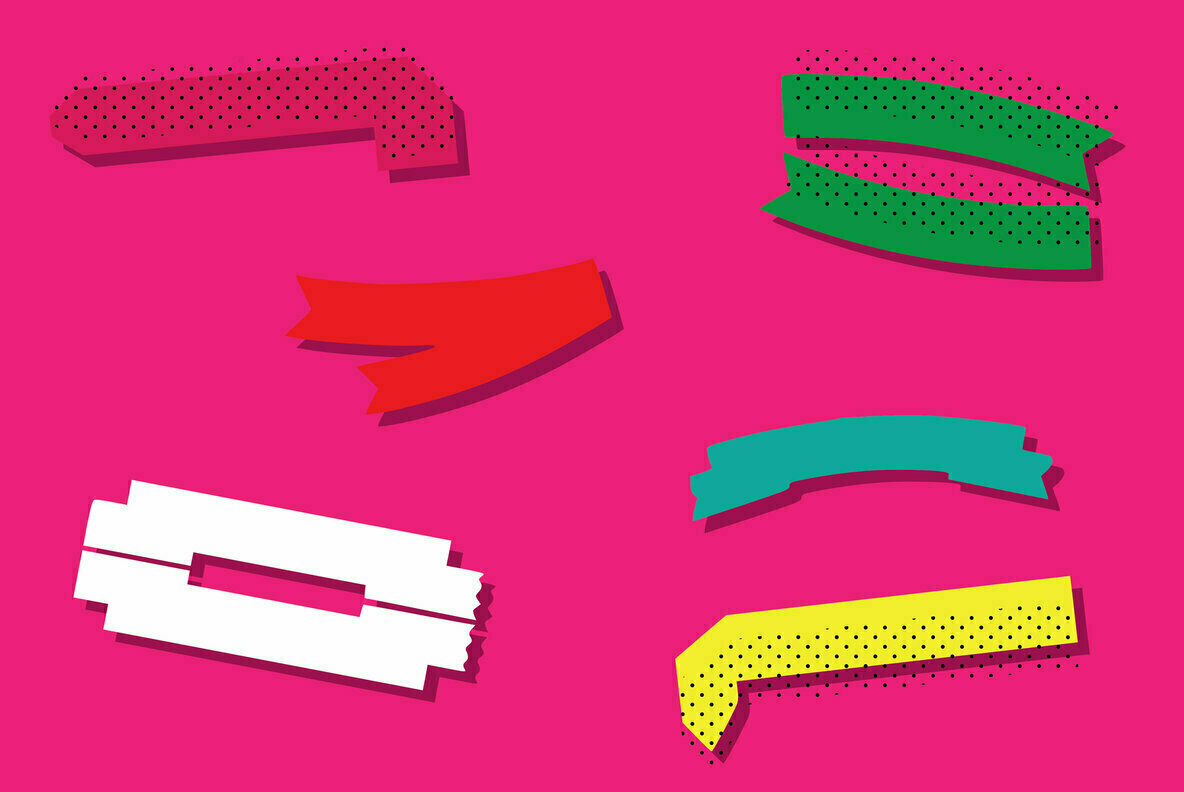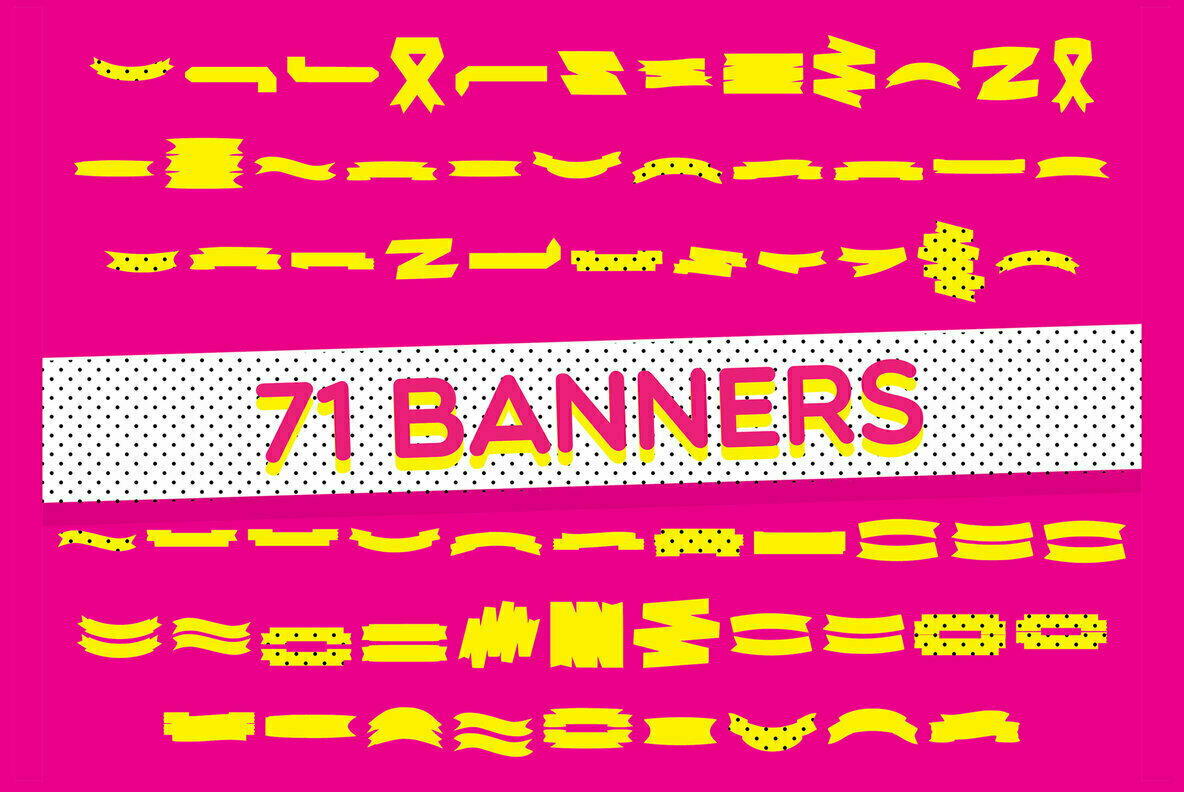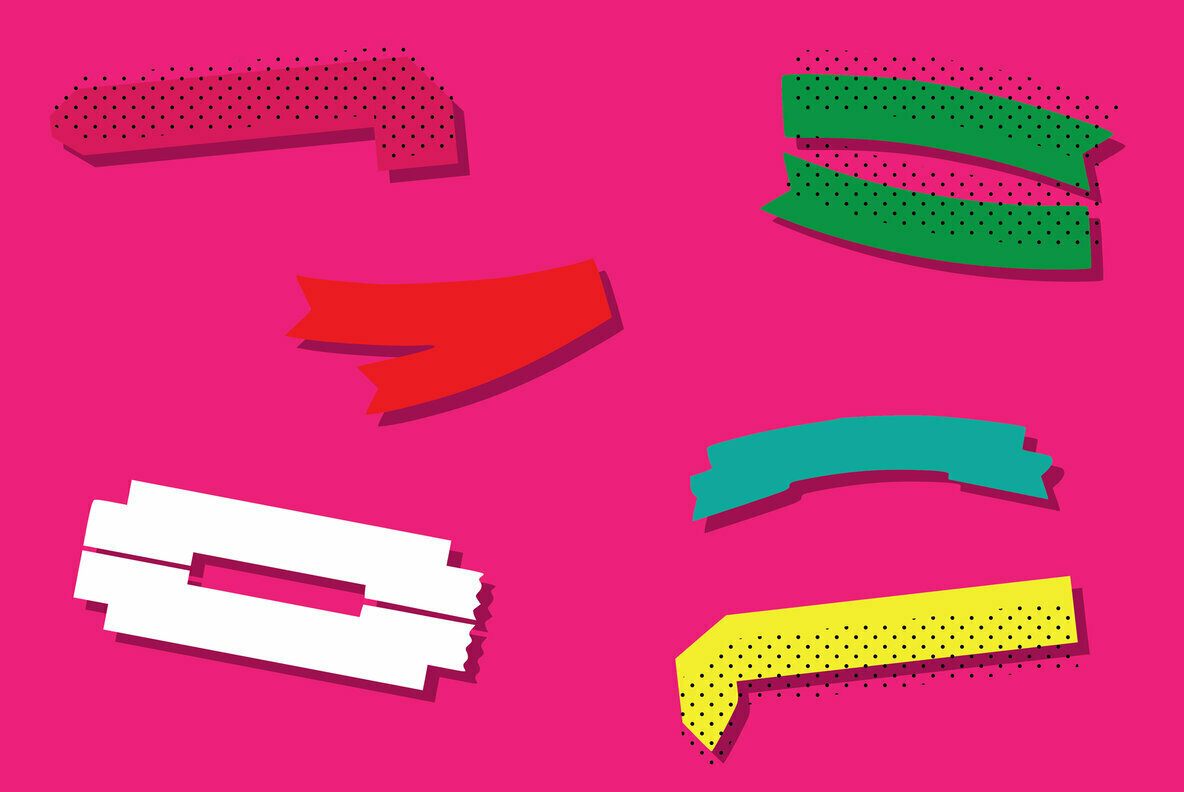
Banners Font
Banners
71 banners (dingbats font) will help you quickly get any design job done with its lovely banners in a variety of styles and shapes.